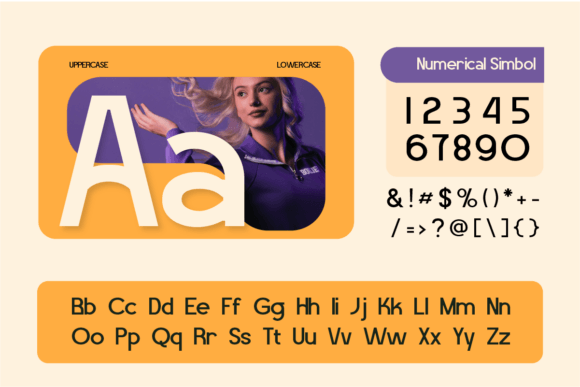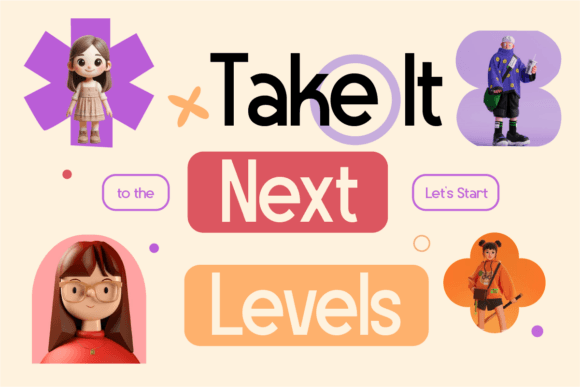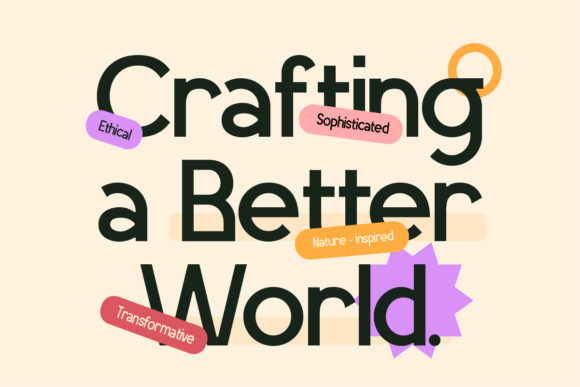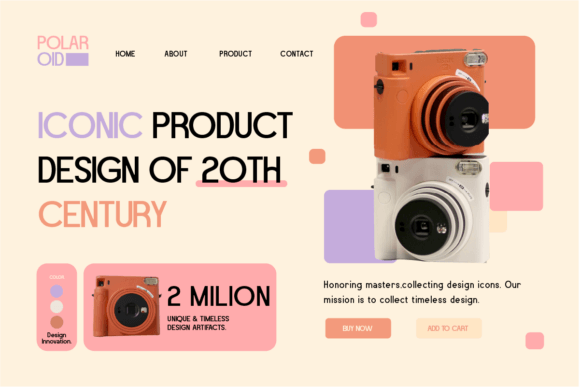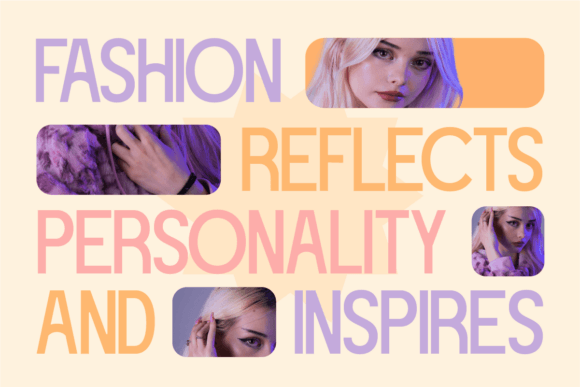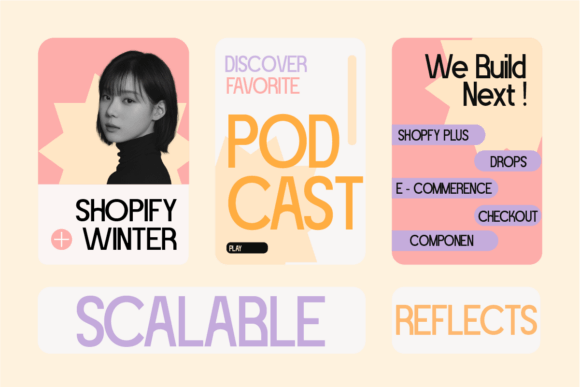
The Birth of a Bold New Font: Introducing Brodish
Have you ever sat in front of a blank canvas, staring at a sea of possibilities, and suddenly, a font style pops into your mind? For designers, this moment is pure magic. It’s the spark that ignites a new project, and for us, that spark was the Brodish Font. Our neo brutalis font was born from a desire to create a bold, geometric shape that would evoke the raw energy of industrial design.
Brodish Font is designed to be both easy to read and visually striking, making it the perfect tool for designers who want to make a statement. Its simple, minimalist style belies its unique characteristics, which include a multilingual support that allows designers to reach a global audience. Whether you’re working on a branding project or a high-impact advertising campaign, Brodish Font is the perfect choice to add an edgy touch to your designs.
Brodish Font Key Features
- Font Family: Brodish Font is a unique, modern sans-serif typeface with rounded edges and friendly feel.
- Unique Characteristics: Distinctive rounded edges and friendly feel make it suitable for body text, signage, and display typography.
- Language Support: Supports multiple languages, including Latin, Cyrillic, and Greek alphabets, making it a versatile font choice.
Brodish Font Review
I’ve had the chance to play around with the Brodish Font, and I must say it’s a mixed bag for me. Here are some of my thoughts:
- The Brodish Font has a unique, modern aesthetic that’s sure to grab attention. Its distinctive style is perfect for creating a bold, eye-catching look.
- The font is highly customizable, allowing you to adjust the weight, width, and slant to suit your design needs.
- The Brodish Font is also incredibly versatile, making it suitable for a wide range of design projects, from logos and branding to web design and print materials.
- One of the main drawbacks of the Brodish Font is its limited character set. This can make it difficult to use for extended blocks of text, as you may run out of characters or have to rely on ligatures.
- The font can also look a bit cluttered at smaller font sizes, which may affect readability.
- Finally, the Brodish Font may not be the best choice for designs that require a lot of fine detail or precision, as its bold, geometric style can make it difficult to distinguish between similar characters.
Overall, I think the Brodish Font is a great choice for designers looking to add some visual interest to their projects. While it may have some limitations, its unique style and high level of customization make it a great addition to any design toolkit.
To get the most out of the Brodish Font, use it for:
- Headings and titles in creative projects.
- Logos and branding materials.
- Invitations and event materials.
Remember to pair the Brodish Font with other fonts that complement its unique style and character.